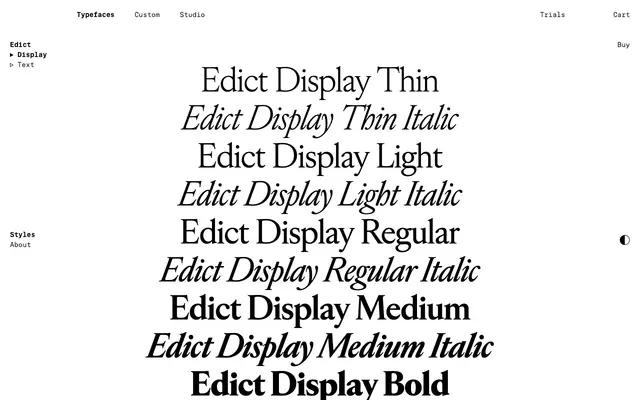
Edict Display
Edict Display specimen from Schick Toikka
Edict's display optical size: the sharper, higher-contrast cut for headlines, set in five weights with full swash italic.
Edict Display is the larger-size cut of the Edict family, drawing on Jean Jannon and wider French Garalde-Transitional sources to deliver sharper serifs, more pronounced teardrop terminals and finer hairlines for headlines and titling. Five static weights with matching italics include opulent swash capitals and lowercase terminal forms, plus small caps for advanced typesetting. Edict Display sits at the top of a hierarchy that extends down through Edict Text for body sizes; both subfamilies share Latin Extended language support and OpenType figure sets.
The Display optical size of Edict, with the family's higher contrast and sharper detail tuned for larger sizes; based on Jean Jannon and the wider French Garalde-Transitional tradition, with sharp serifs and swelling teardrop terminals.